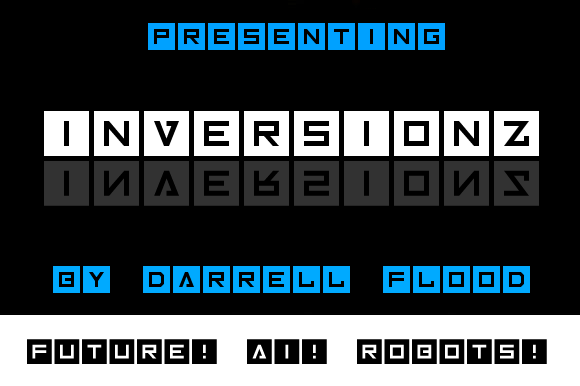
Introduction to Inversionz Font Font
Fonts play a crucial role in design, and the Inversionz Font font is a typeface that brings both character and versatility to any project. Whether you’re working on a branding project, a website, or a print design, the Inversionz Font font offers a unique style that can elevate your work.
A futuristic scifi font in a slick, stylish, tile-set style.
Perfect for alien encounters, robot themes and tech related products .
Key Features of Inversionz Font Font
Why Choose Inversionz Font Font?
The Inversionz Font font is more than just a typeface – it’s a design tool that helps you communicate your message with style and clarity. Its unique character set and versatile design make it suitable for a wide range of applications, from elegant invitations to bold headlines.
With its carefully crafted letterforms and balanced proportions, the Inversionz Font font ensures readability and visual appeal across all mediums.
What makes Inversionz Font font special?
The Inversionz Font font stands out with its unique design, exceptional readability, and versatility across various design applications.